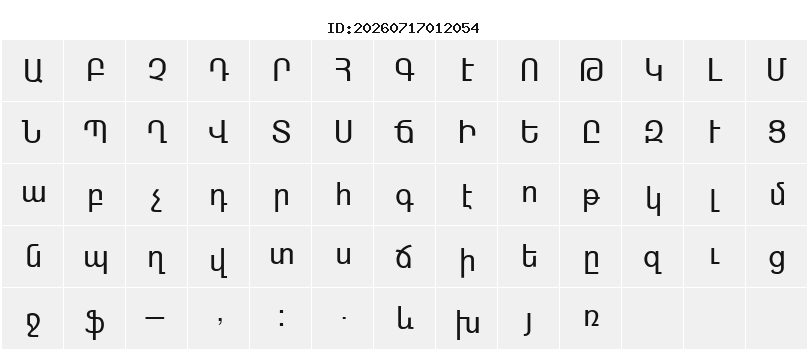
ARAGATZ Preview
About ARAGATZ.ttf
ARAGATZ.ttf is a modern, elegant sans-serif font designed for ultimate readability and visual harmony. Perfect for branding, headlines, web design, and print materials.